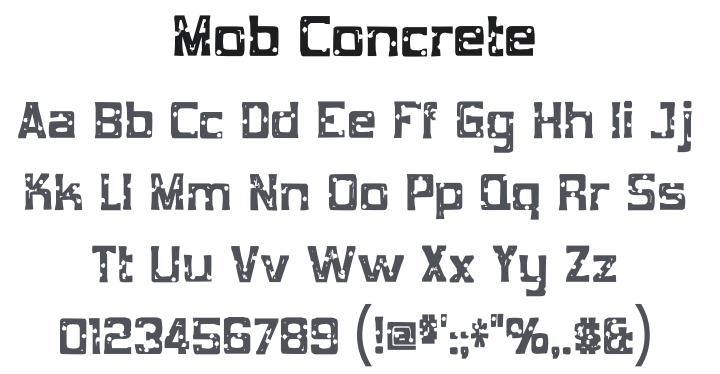
Mob Concrete Font
About Mob Concrete
Mob Concrete is a bold, eroded display typeface where every letterform looks riddled with bullet holes — chunky, solid characters punched through with irregular voids that give the impression of concrete walls sprayed with gunfire. The damage is dramatic and instantly readable. Perfect for crime thriller designs, action game titles, gangster-themed branding, military posters, and any headline that needs to look like it survived a firefight.